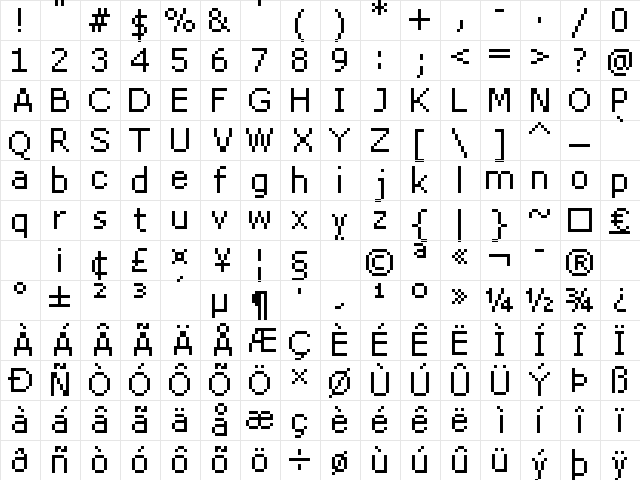
px Ver 8pt Regular
Design Context for px Ver 8pt Typeface
px Ver 8pt is a composed and adaptable typeface that performs quietly and consistently across a wide range of design contexts.